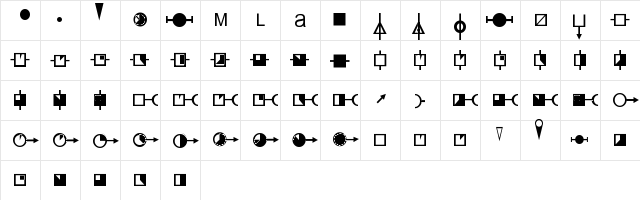
WEA_GSK Regular
Design Context for WEA_GSK Typeface
WEA_GSK takes a measured approach to typography — its balanced proportions and neutral character make it a reliable workhorse for both digital and print work.